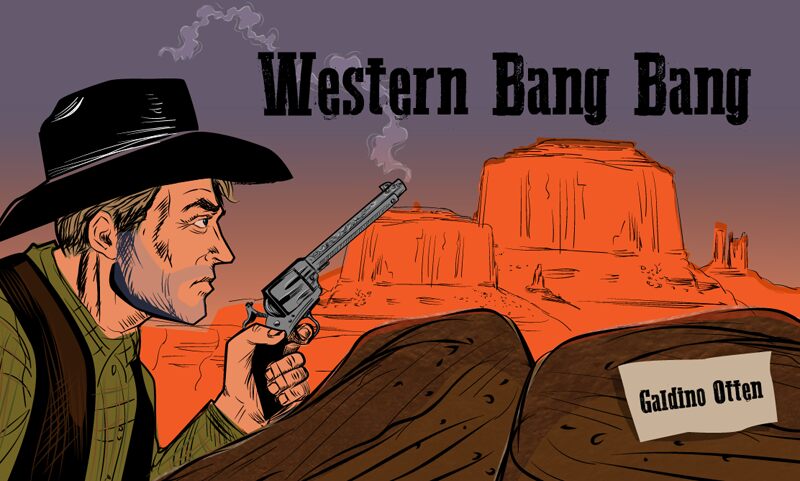
Western Bang Bang
Western Bang Bang, designed by Galdino Otten, is a display font that carries the spirit of the wild west with its bold and adventurous western style. This semi-bold typeface, with its condensed width, exudes a rugged charm that is both nostalgic and striking. The sharp serifs and distinctive letterforms of Western Bang Bang evoke images of dusty saloons and wanted posters, making it an ideal choice for projects aiming to capture the essence of frontier life or add a touch of vintage Americana.
The aesthetic appeal of this font lies in its ability to stand out with character; it's not merely a typeface but a statement piece that demands attention. Whether used for logos, branding, event posters, or thematic gaming titles, Western Bang Bang's unique style ensures that your creative endeavors will leave a strong impression. With its mix of classic western appeal and modern design sensibilities, Western Bang Bang is ready to bring an authentic edge to any project craving typographic flair.